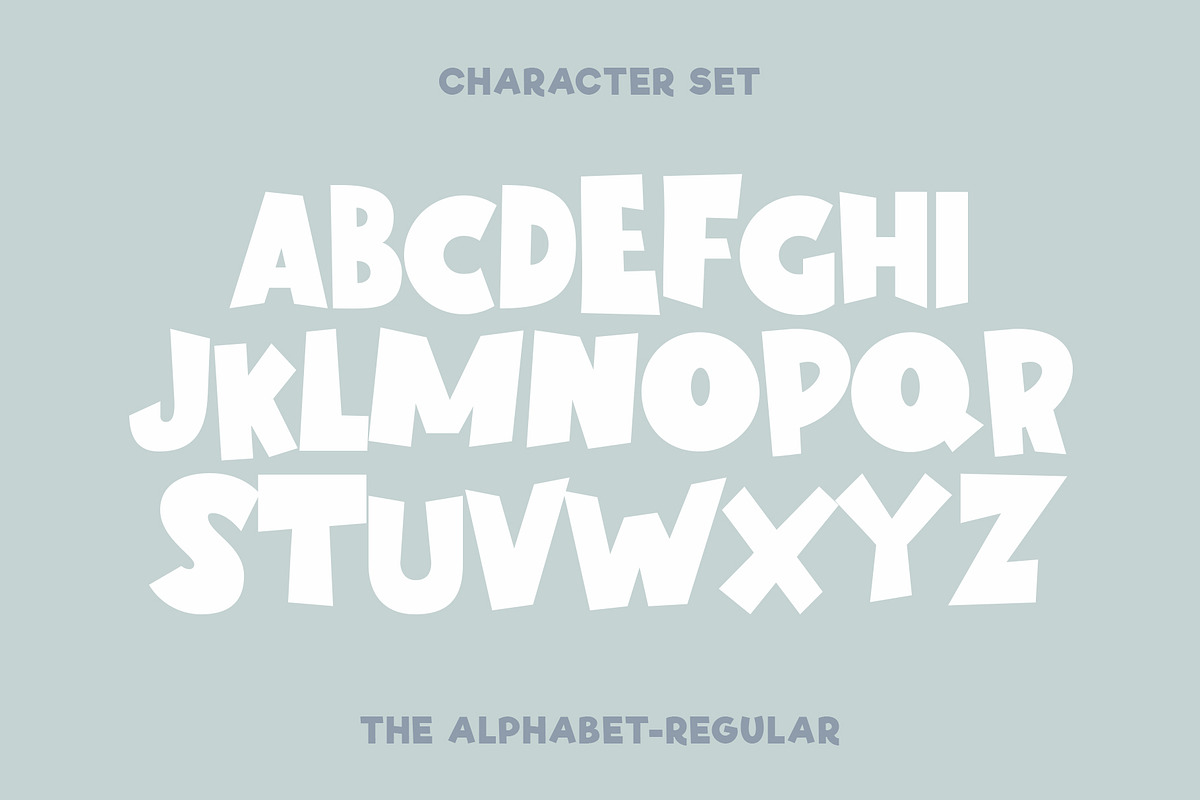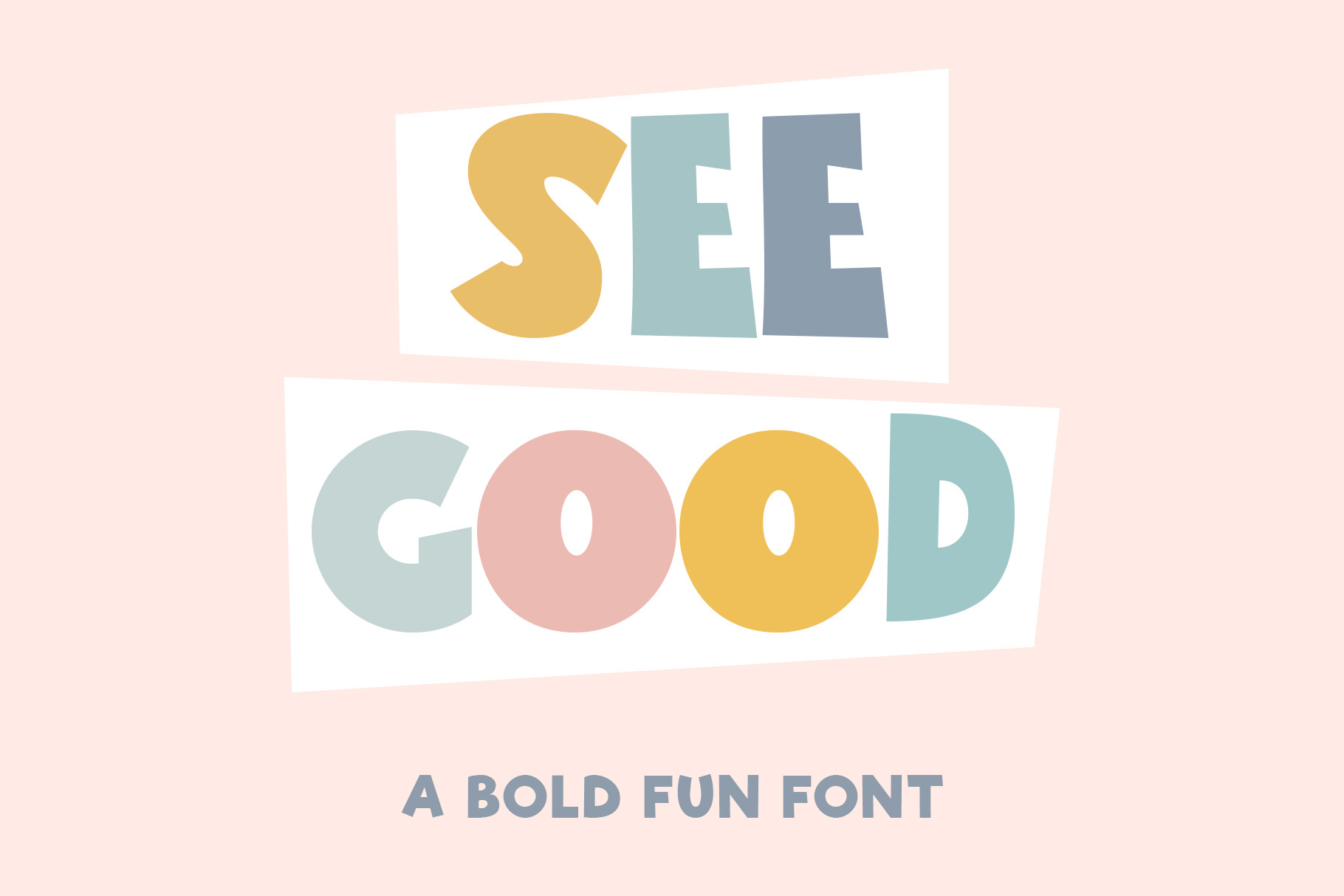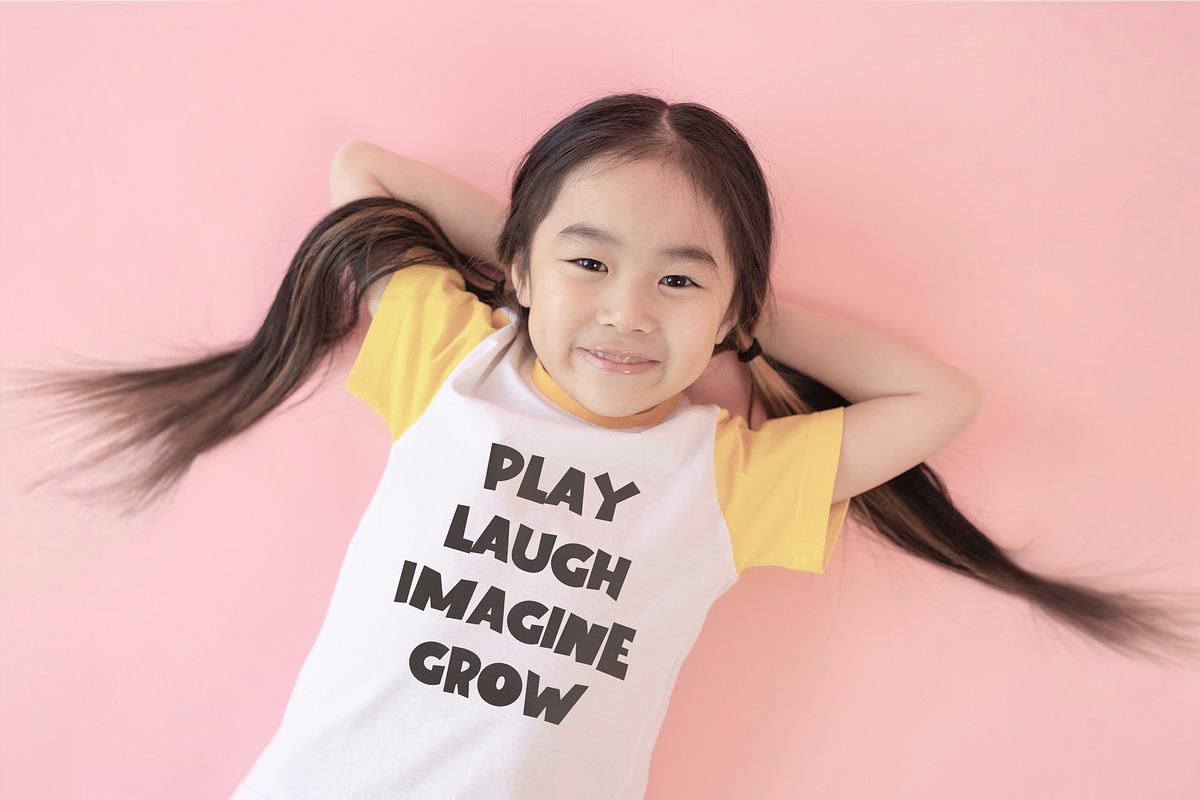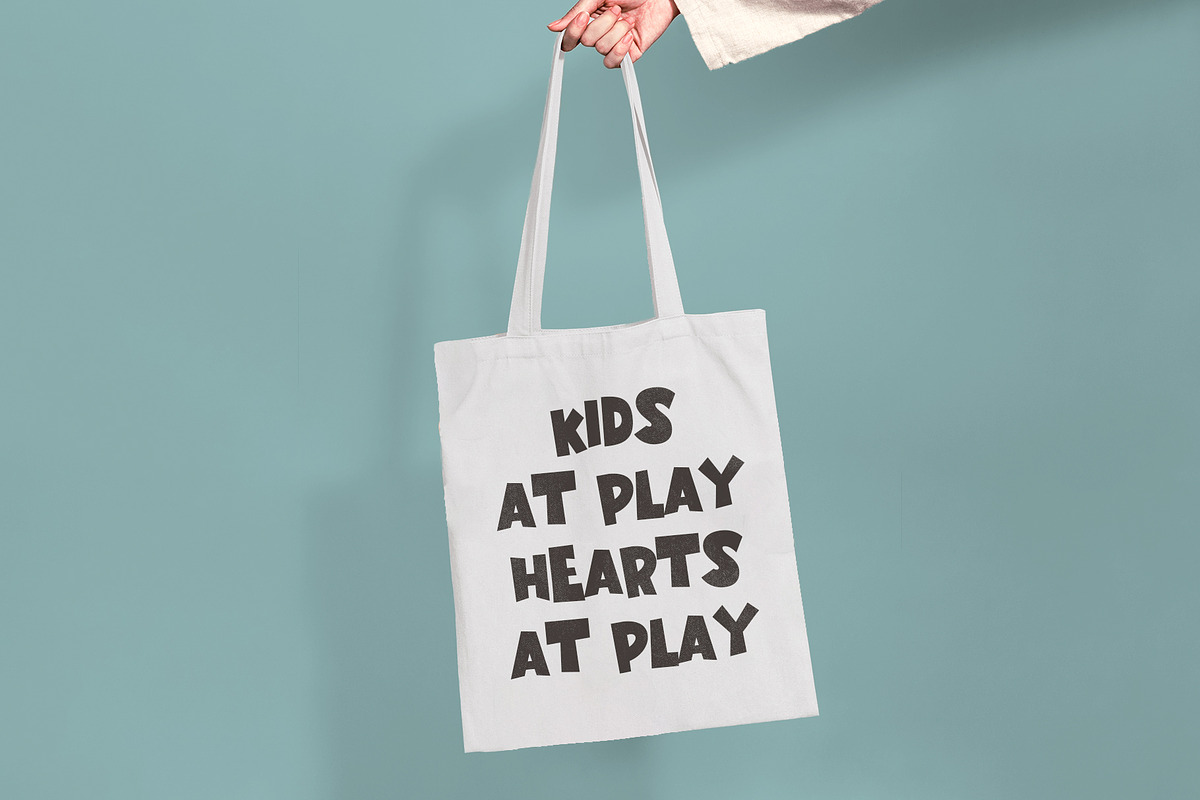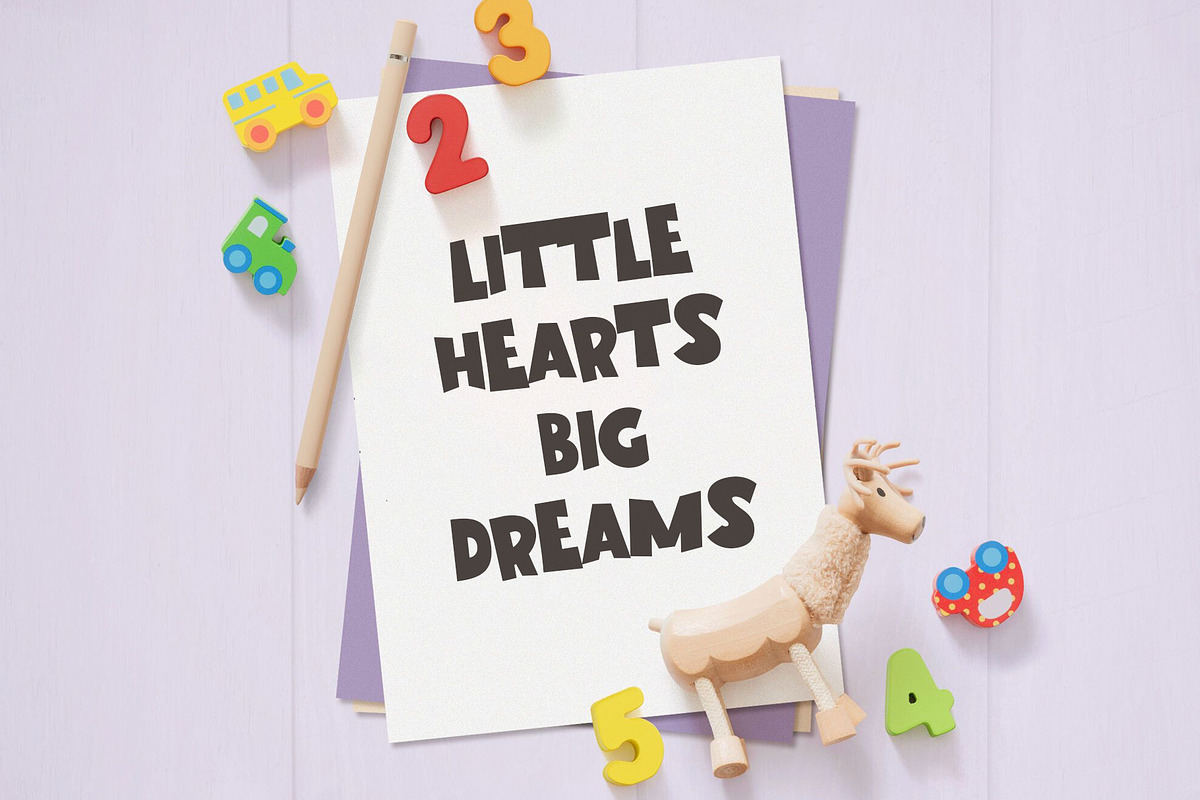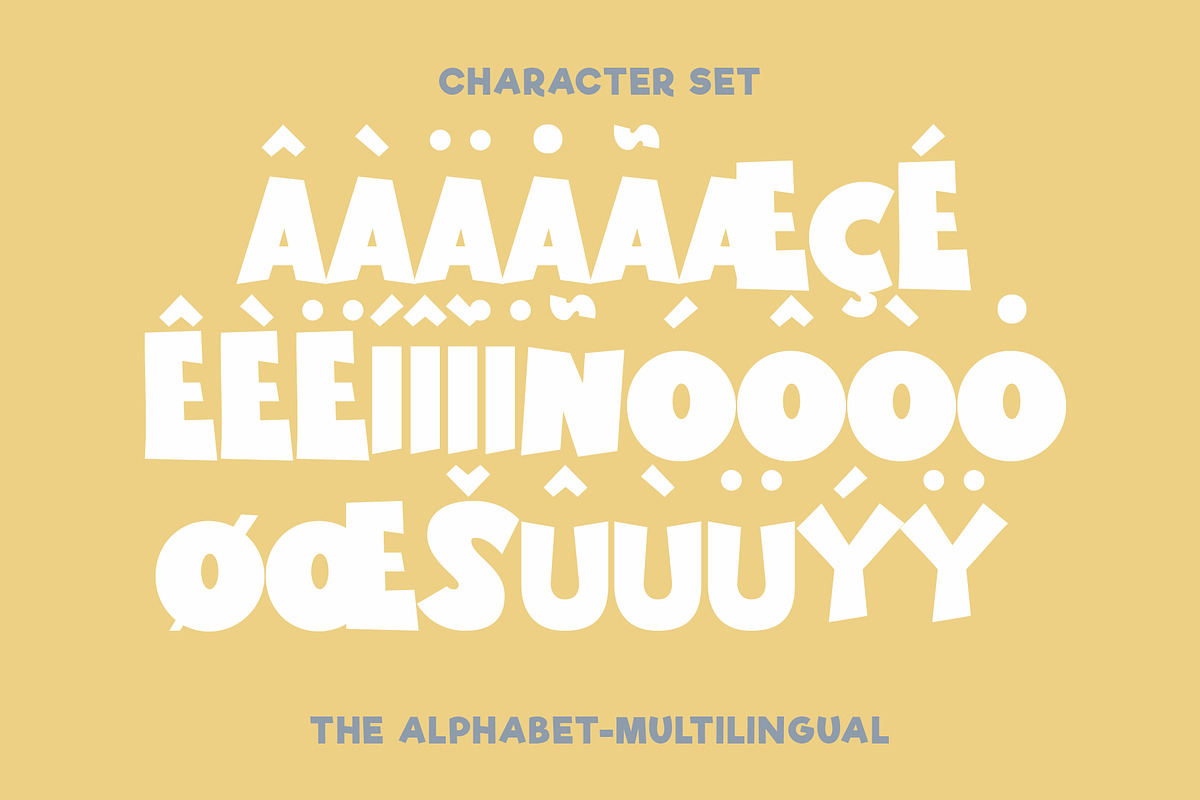
See Good Font - Playful Font
"See Good" is a delightful Sans Serif font that effortlessly combines simplicity with a playful and whimsical style. This typeface available in SVG format, compatible with advanced tools such as Cricut and Glowforge, and for use in Procreate. "See Good" stands out as a distinctive choice for design elements that require a balance between professionalism and a lighthearted, fun atmosphere.